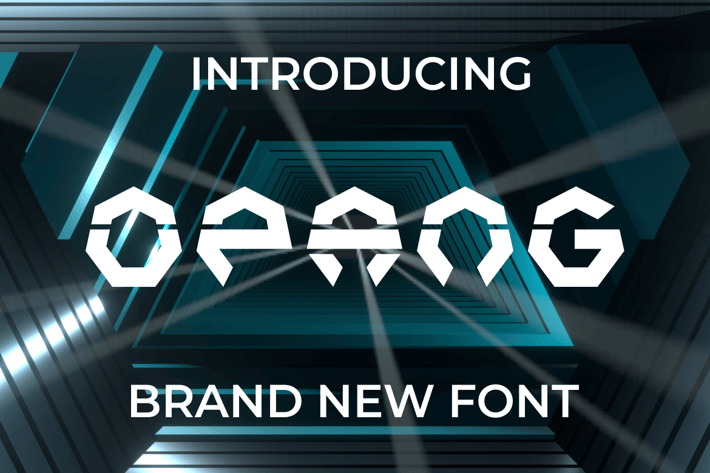
OPANG Font
Introducing our new product OPANG Font - Modern Font
OPANG Font - Modern Font is a bold and authentic display font. The font is suitable for any branding project like logo, t-shirt printing, esport, and many more. outstanding in a wide range of contexts.